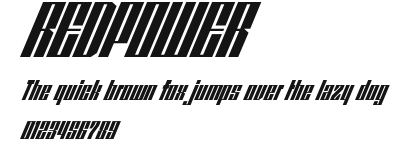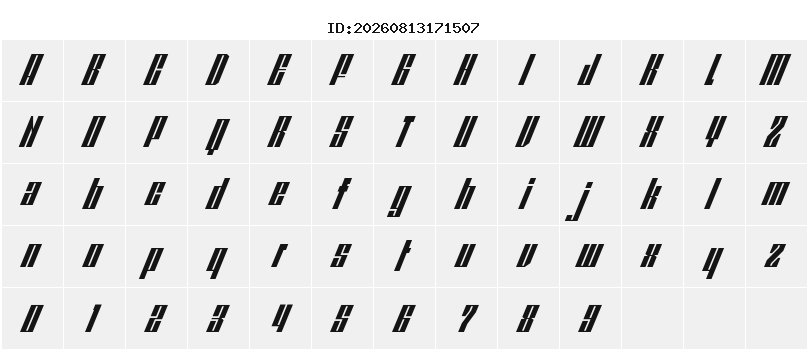
• Font Name: REDPOWER
REDPOWER.ttf is a modern, elegant sans-serif font designed for ultimate readability and visual harmony. Perfect for branding, headlines, web design, and print materials.